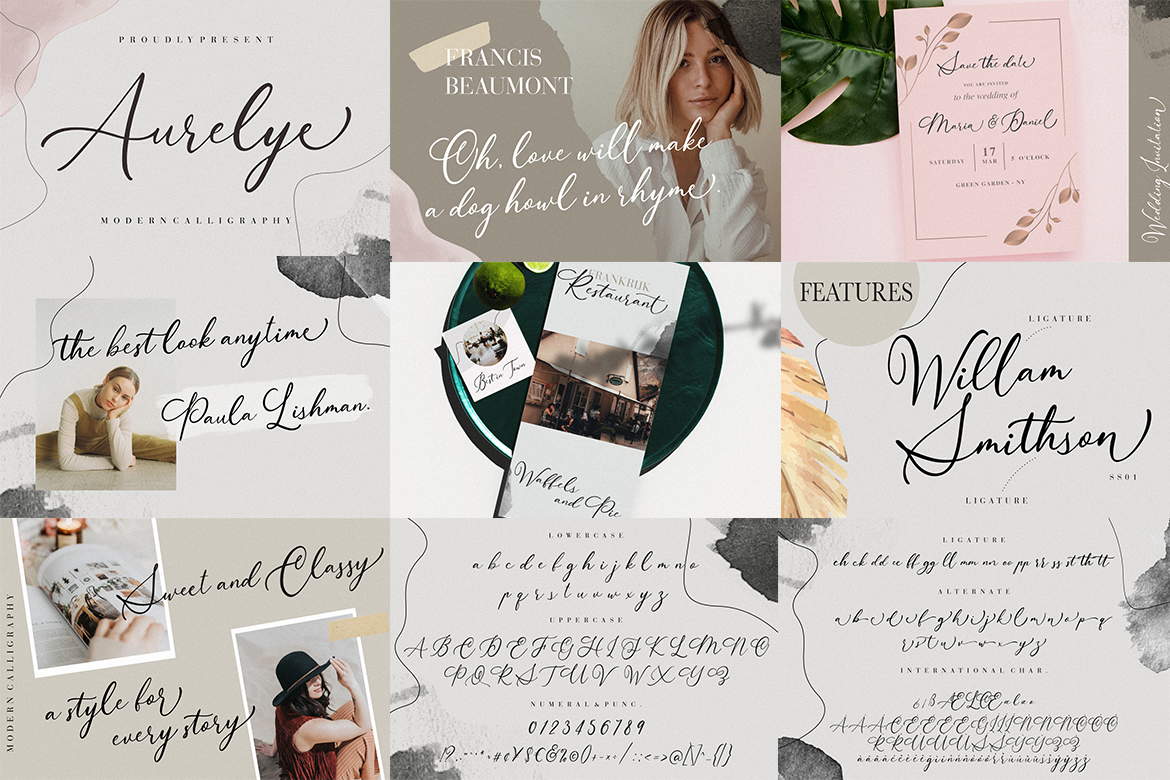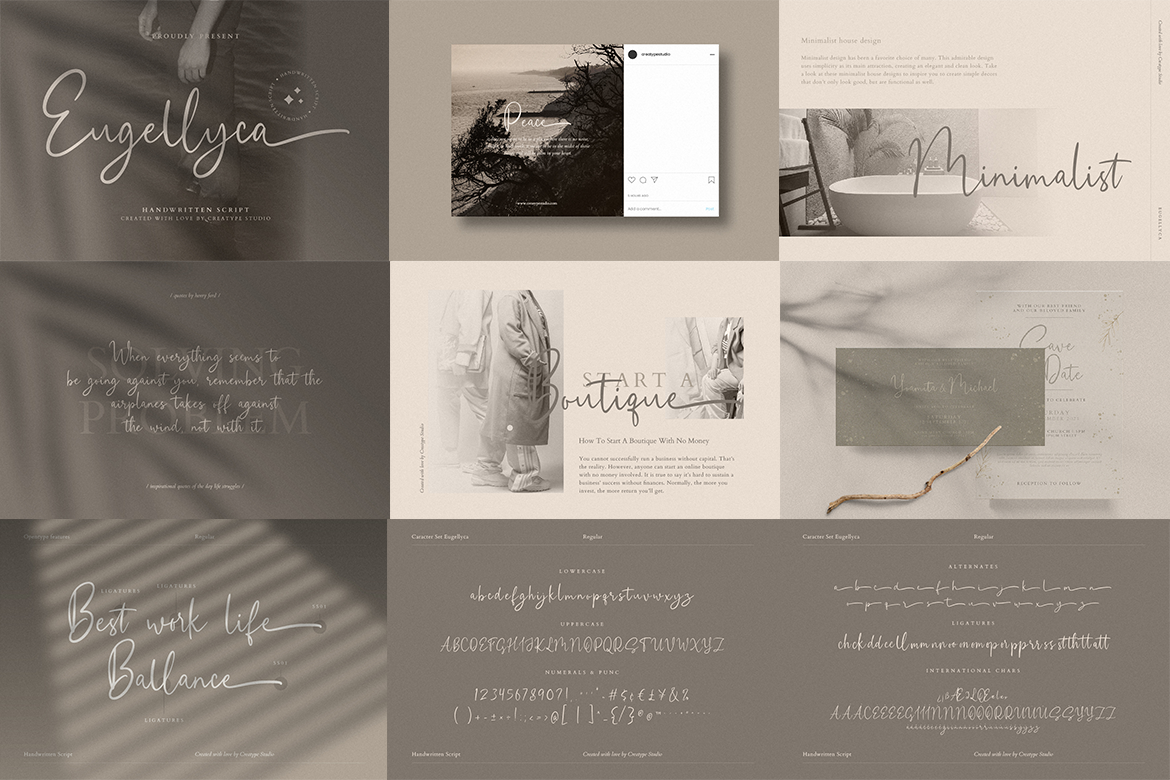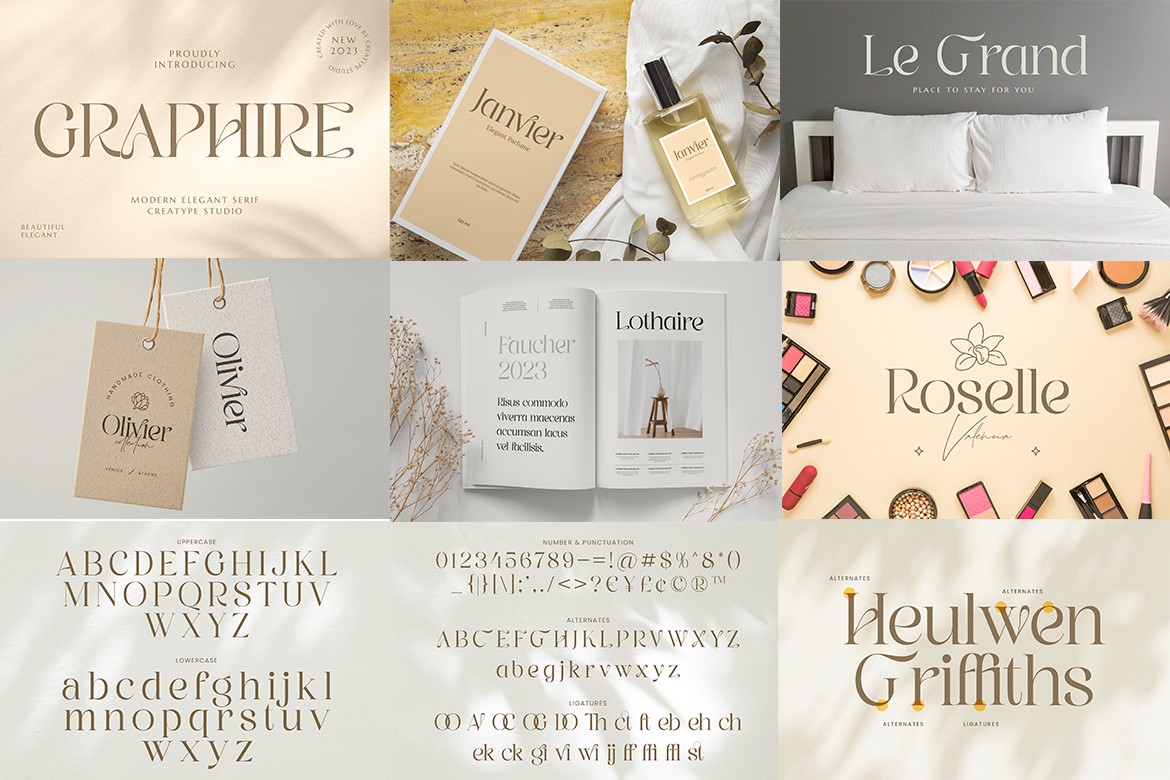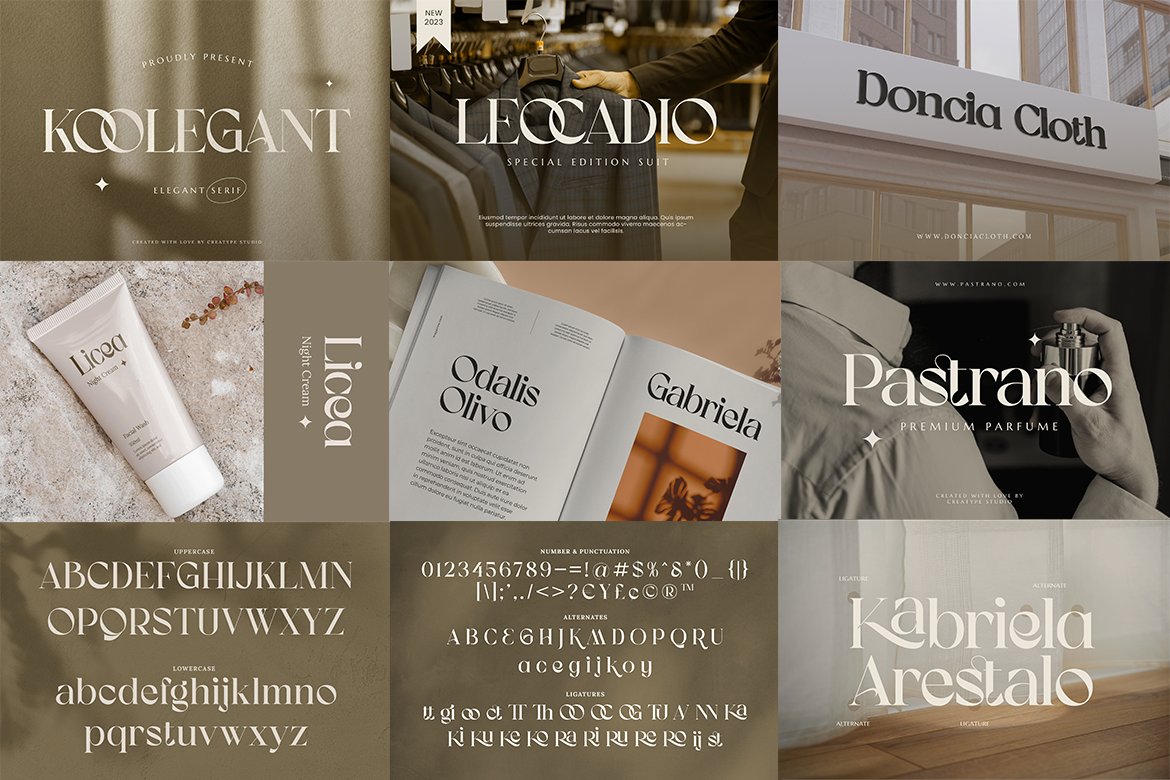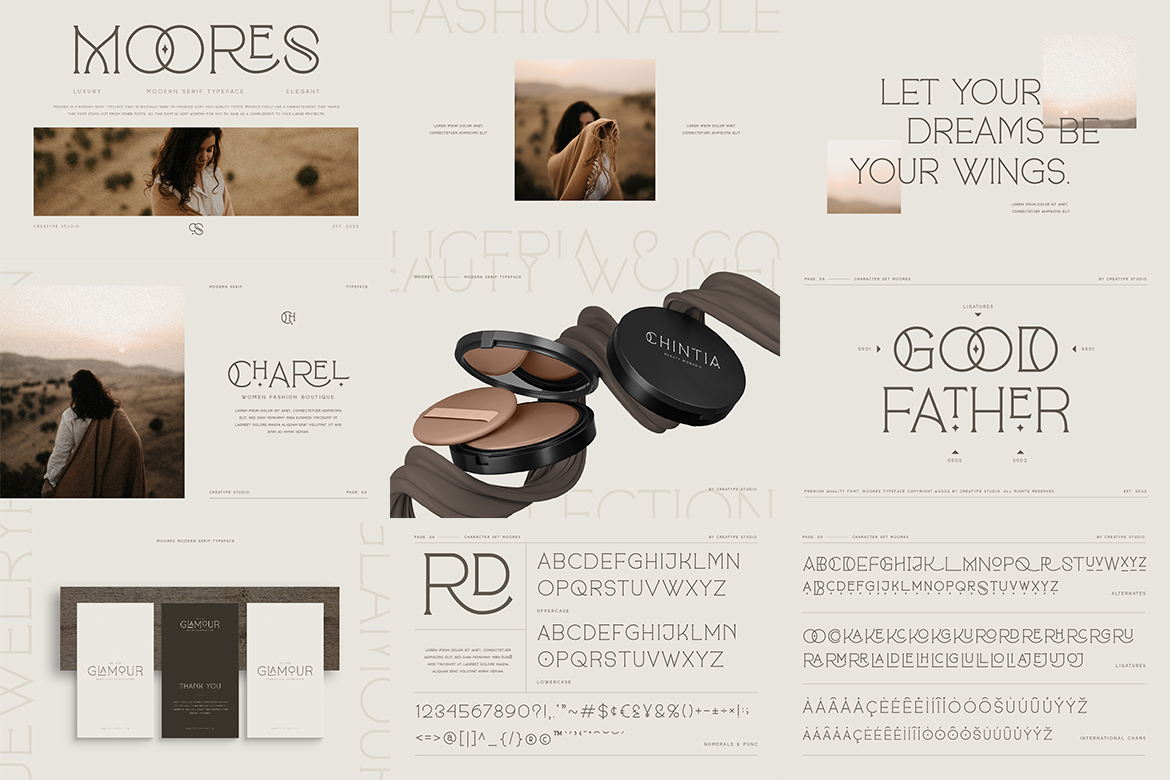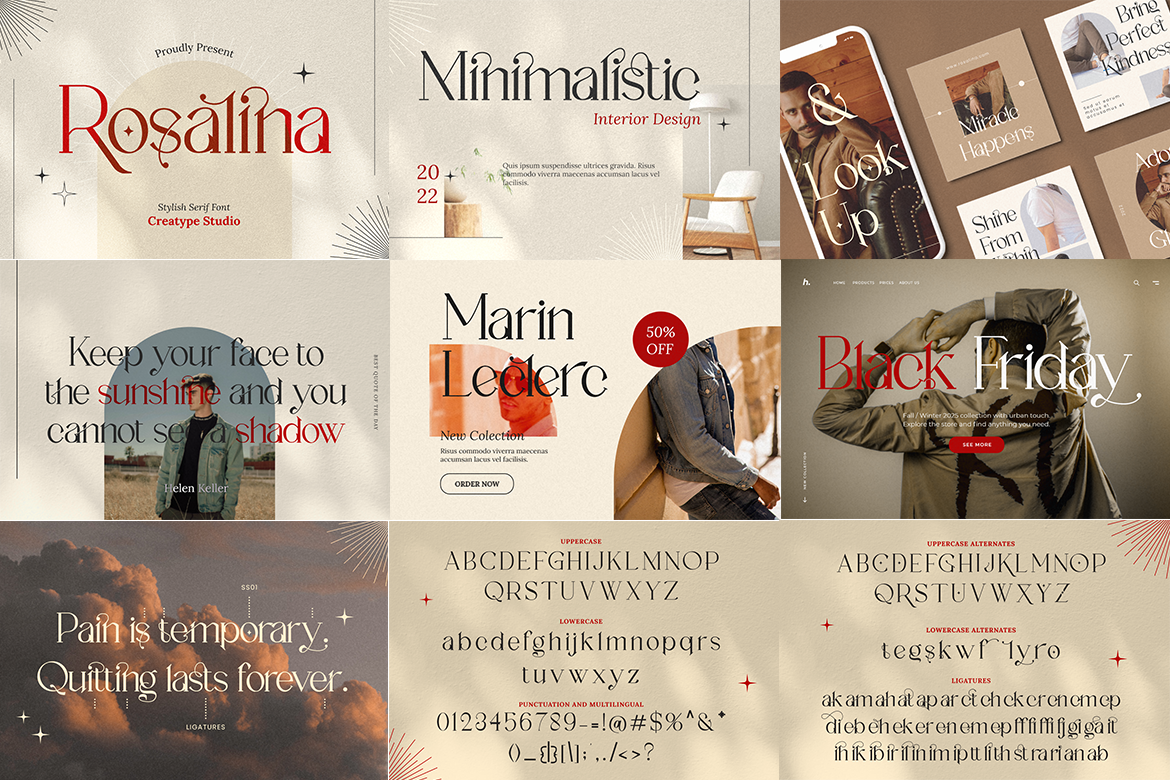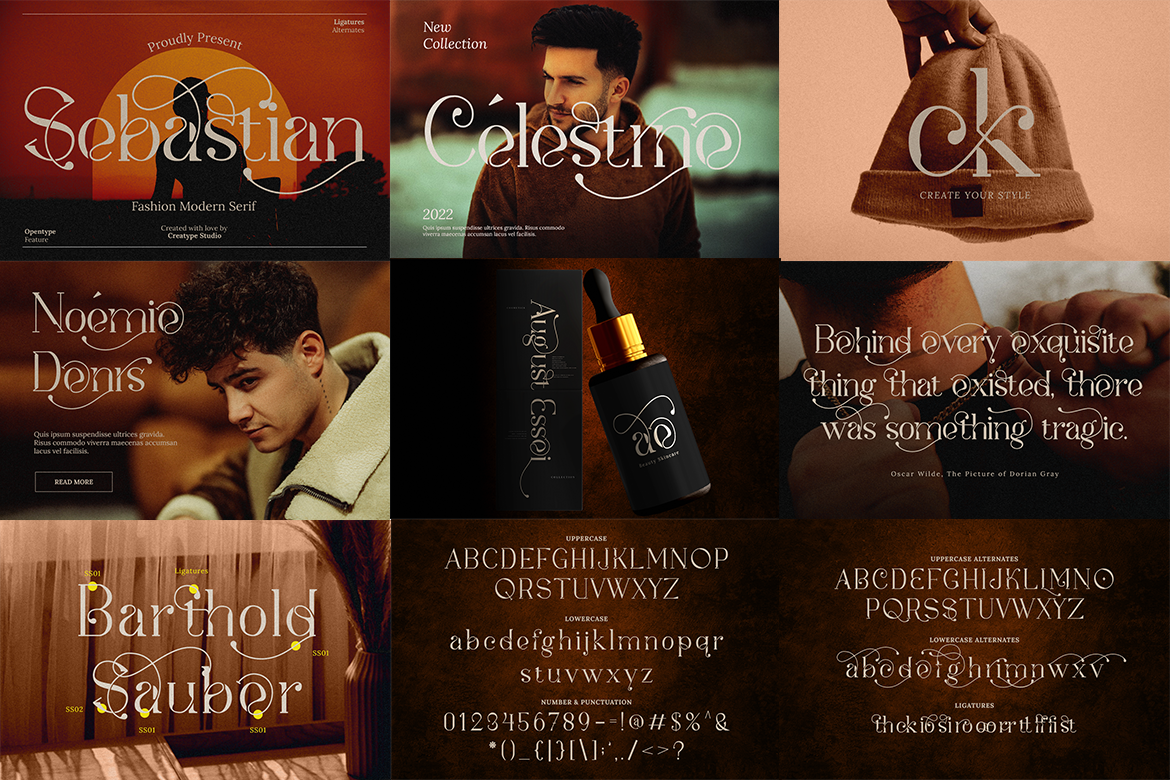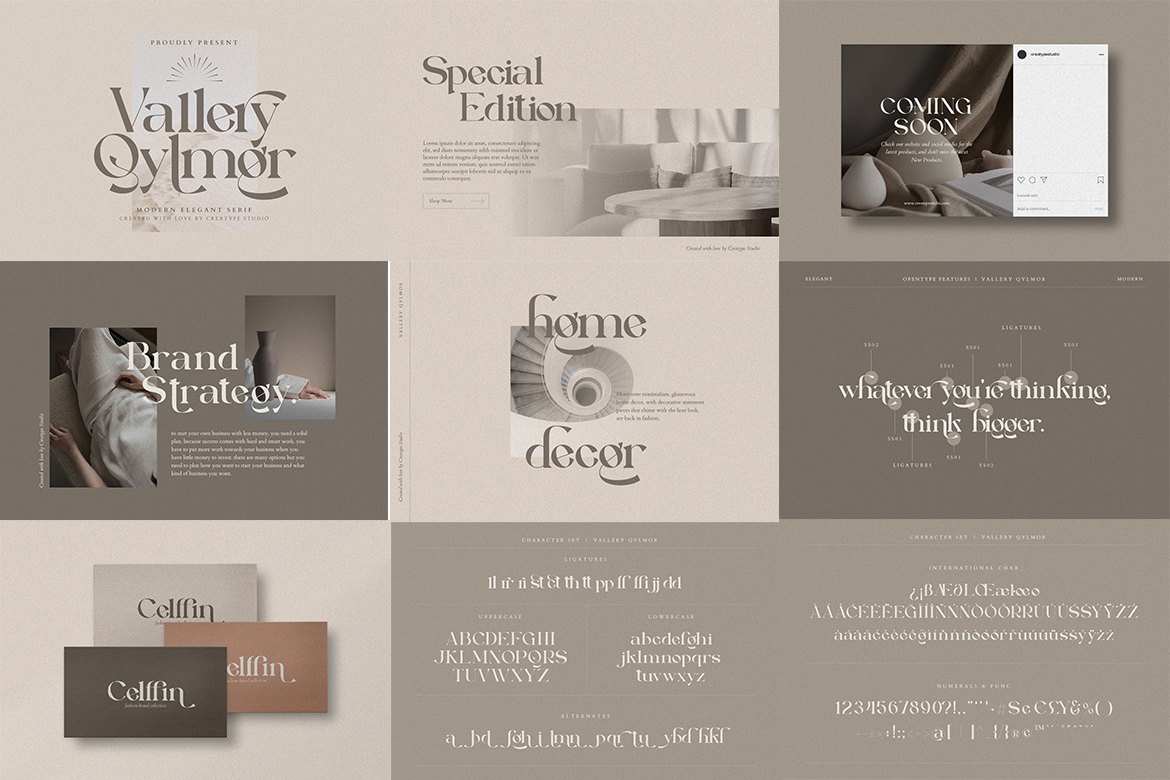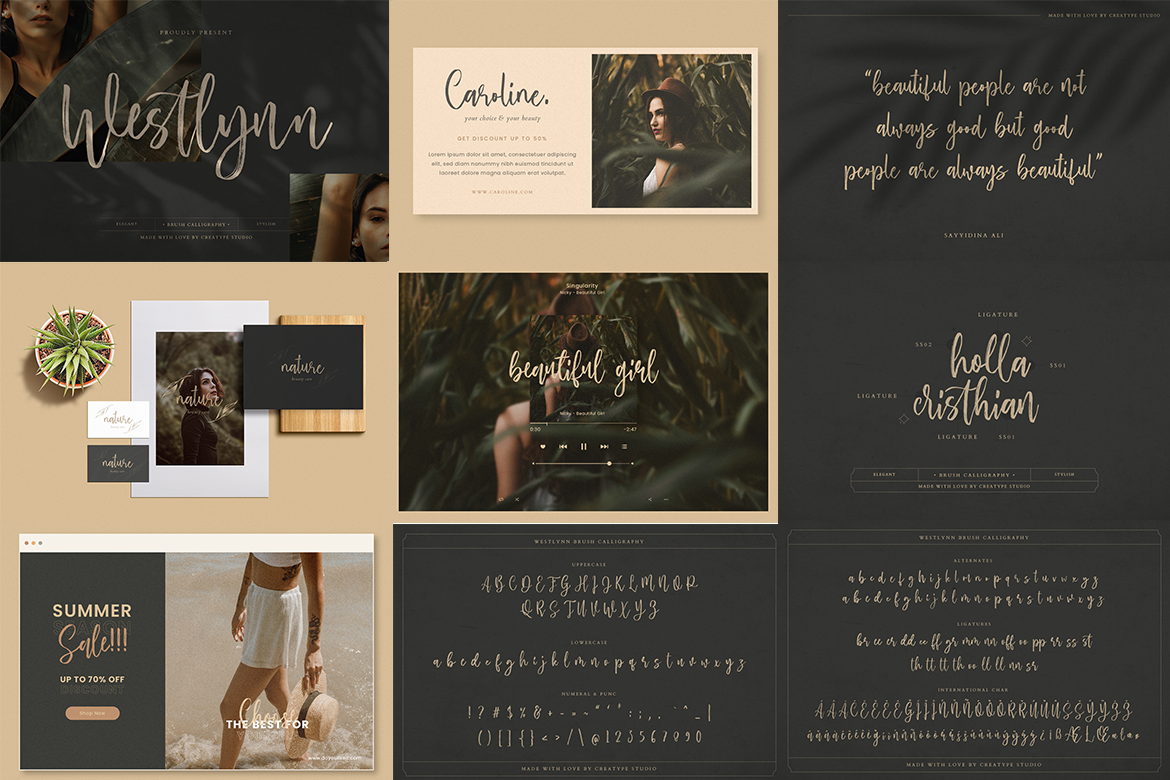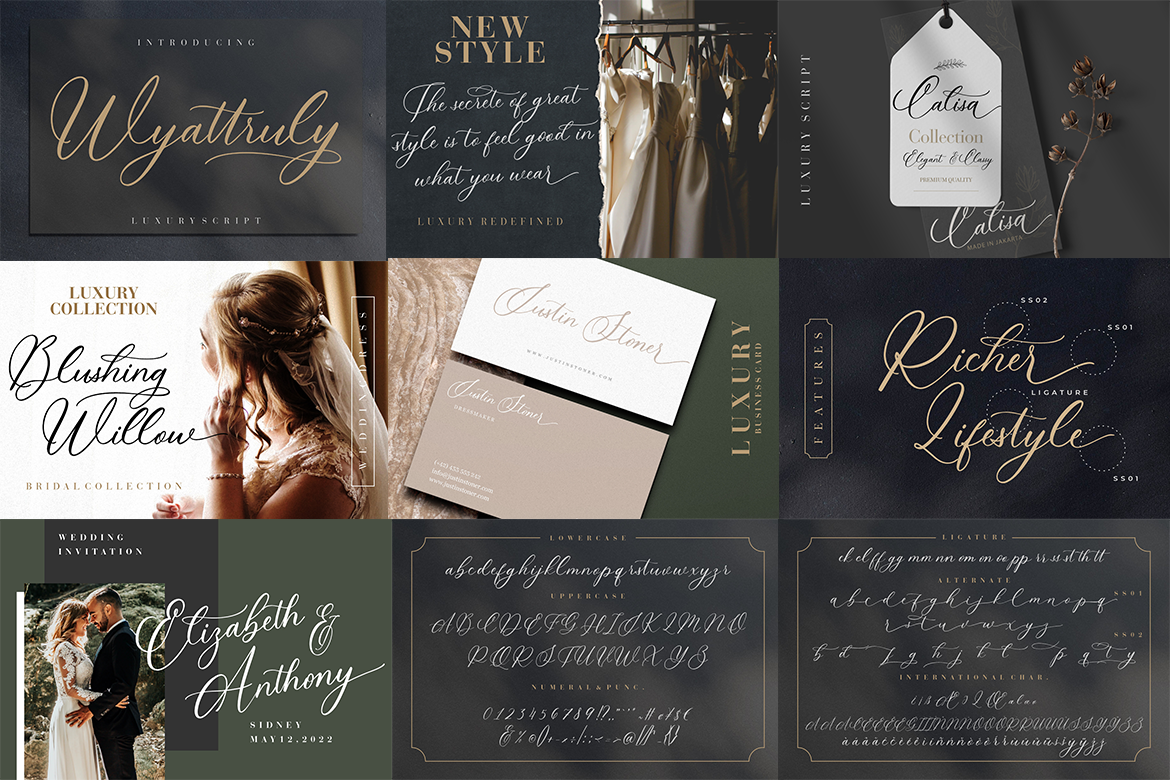
Discover the Magic of our Romantic Fonts Bundle
Fall in love with our exquisite Romantic Fonts Bundle, a collection of stunning typefaces designed to add a touch of elegance and passion to your creative projects. This carefully curated selection offers a perfect blend of classic charm and modern sophistication, making it ideal for a wide range of applications.
Corporate Grade Quality Meets Artistic Expression
Our Romantic Fonts Bundle boasts Corporate Grade Quality, with several fonts in the collection having been chosen by leading brands for their marketing materials. These fonts offer the perfect balance of readability and style, ensuring your message is both clear and visually appealing.
Versatile and Platform Agnostic
Perfect for a Variety of Projects
This Font Bundle is an essential tool for designers, marketers, and creatives across various industries. Use these fonts to create:
• Wedding invitations and stationery
• Valentine’s Day promotions
• Luxury product packaging
• High-end restaurant menus
• Romantic book covers
• Elegant website headers
• Sophisticated social media posts
With our Romantic Fonts Bundle, you’ll have the perfect typeface for every romantic-themed project. Don’t miss this opportunity to add these versatile, high-quality fonts to your creative arsenal. Transform your designs and impress your clients with the timeless beauty of our Romantic Font collection.
What’s in this Romantic Fonts Bundle?